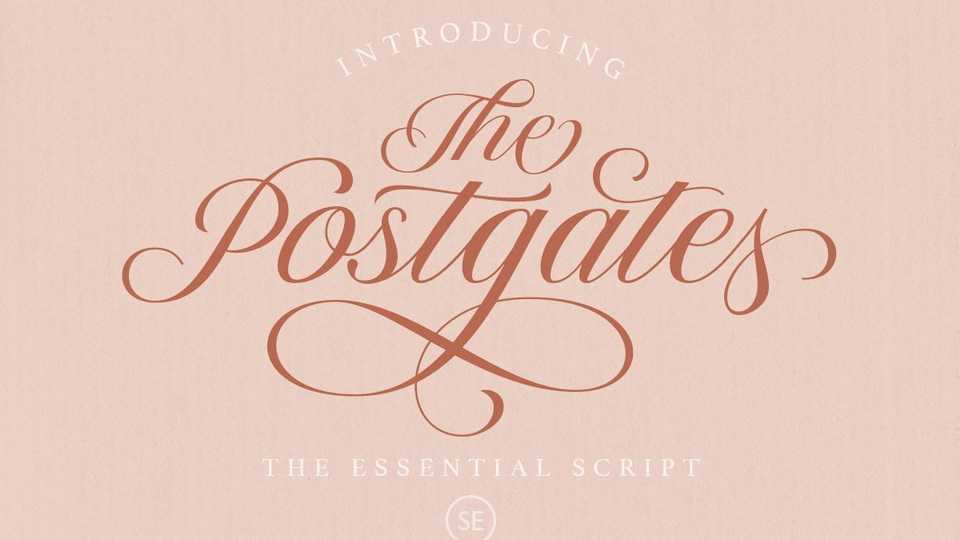
Download The Postgates font, a classic and incredibly elegant script font. It is ideal for writing letters or romantic notes, as well as for creating your desired wedding invitations or thank you cards.